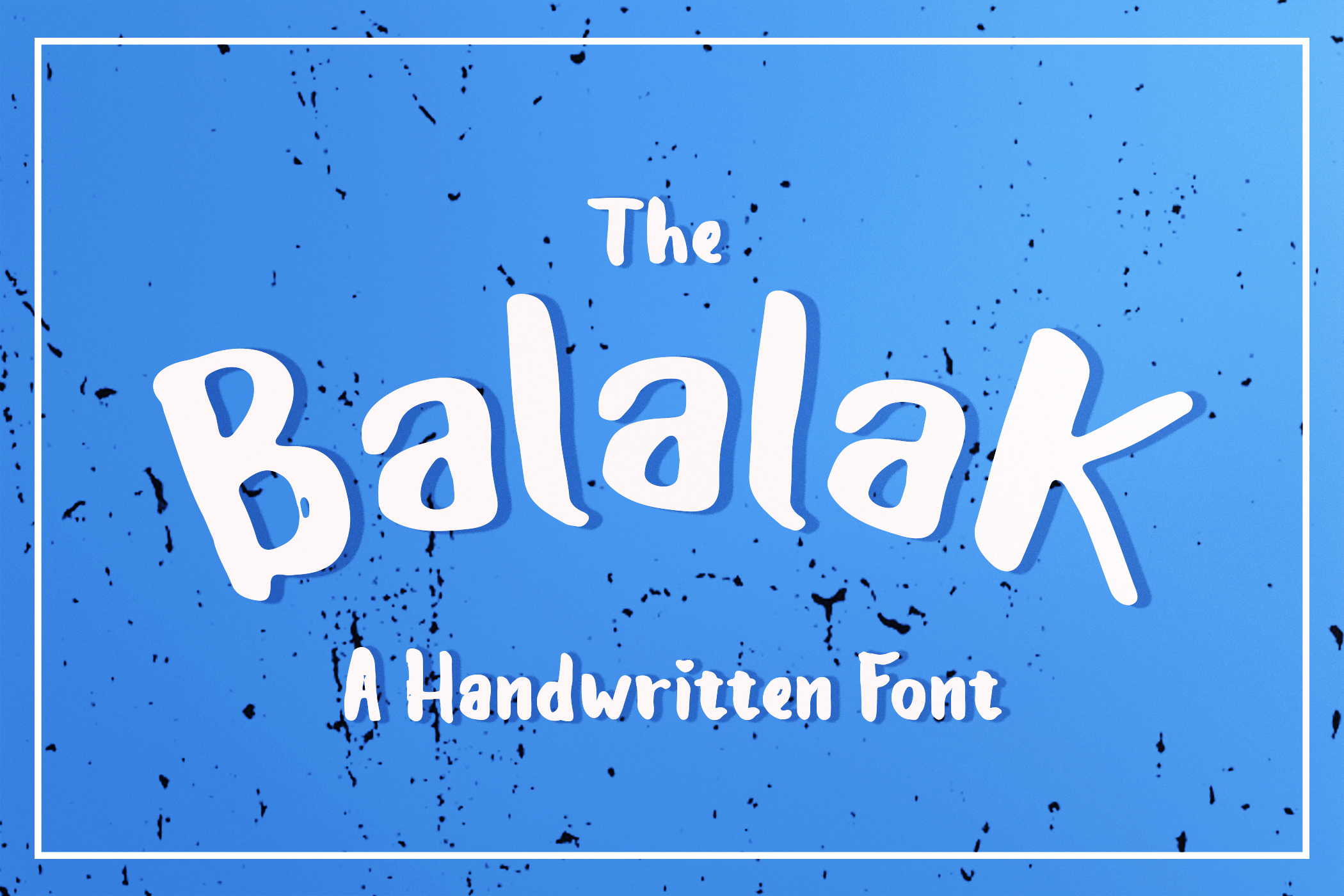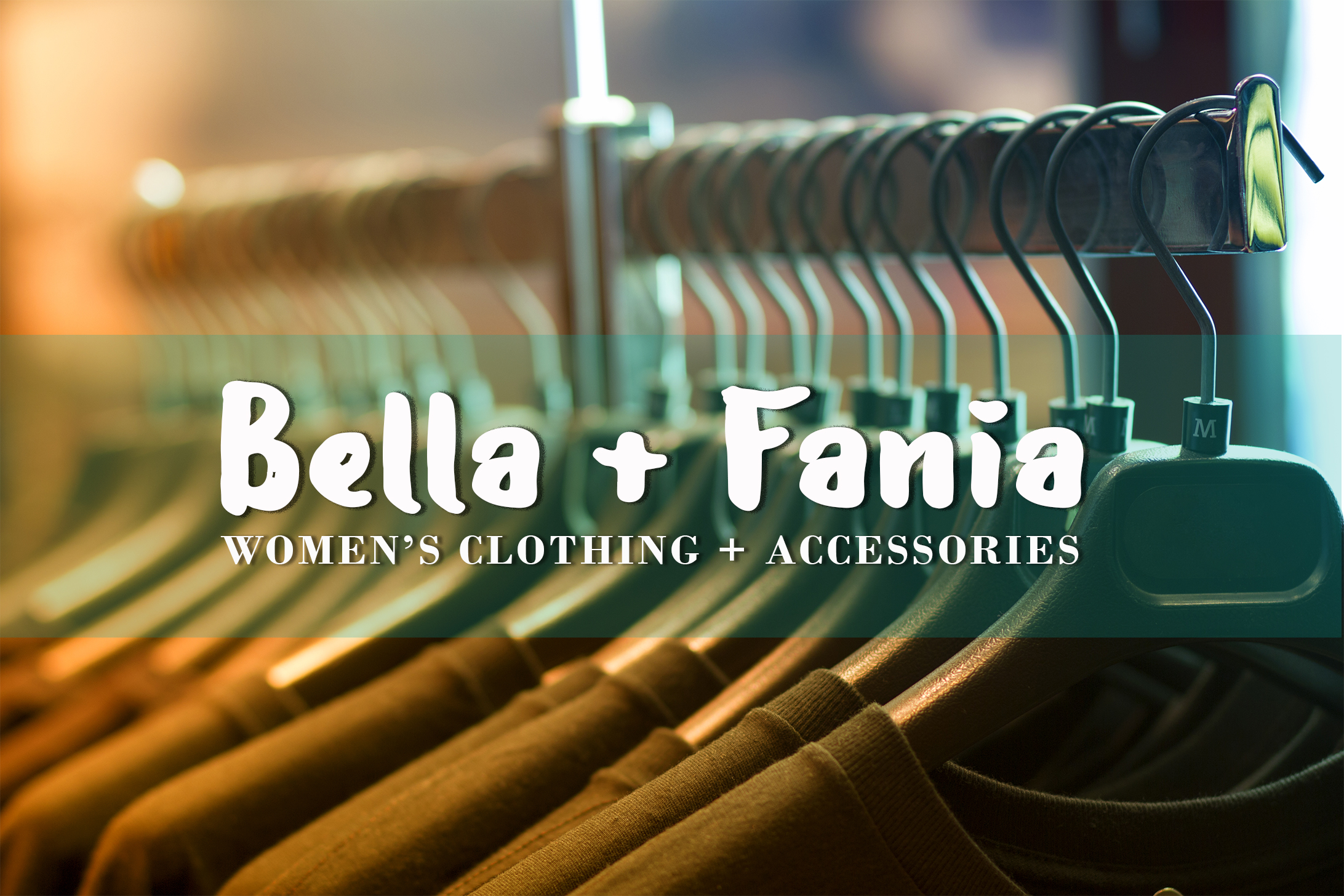
Balalak Font
About Balalak Font
Balalak is a beautiful and captivating hand brushed font, perfect for displays or other similarly styled designs. This sans serif font is legible and visually engaging.